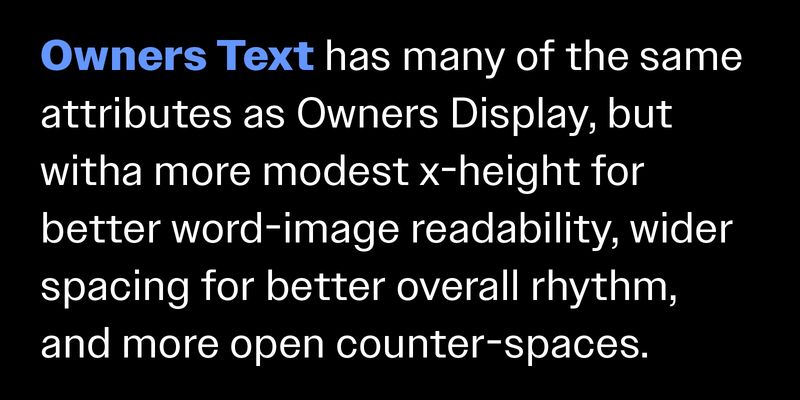
Owners Text Font Free Download is a refined, readable typeface designed specifically for use in longer text formats. With its clean, contemporary look and excellent legibility, Owners Text is perfect for editorial design, web content, branding, and any project where clarity and professionalism are key.
The font features balanced proportions, subtle curves, and a smooth flow, ensuring it remains comfortable to read in body text. Its versatility makes it suitable for everything from articles and blog posts to printed materials such as brochures, books, and magazines.